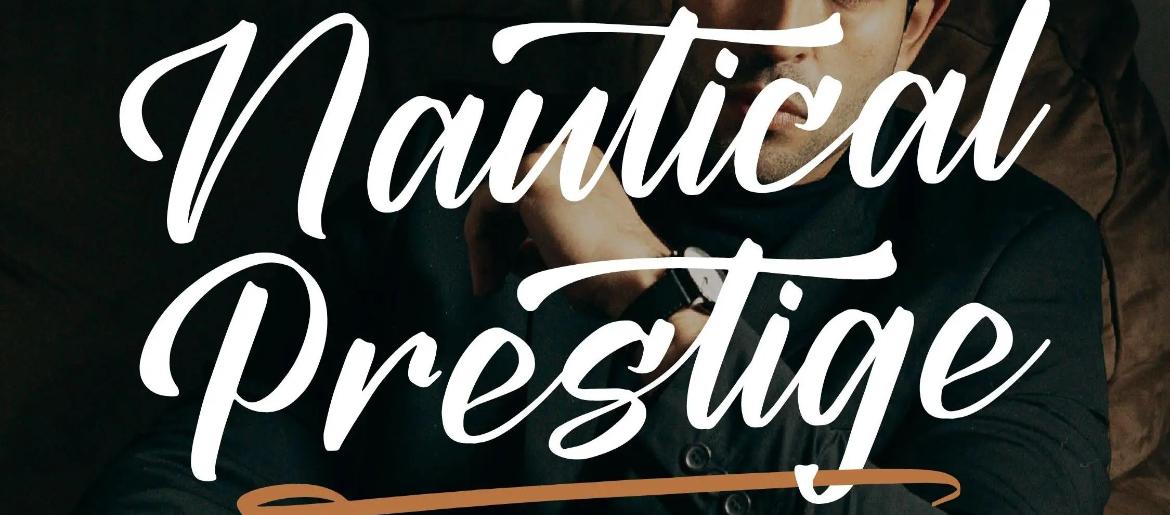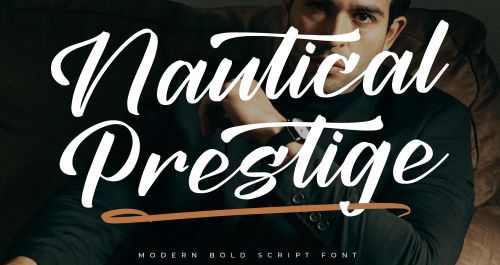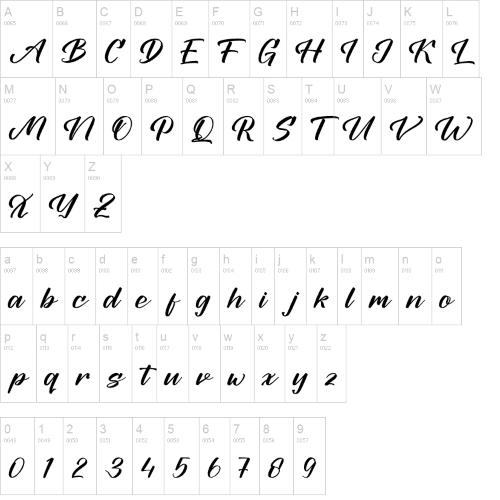
Nautical Prestige Font
Nautical Prestige font
Nautical Prestige Font is a modern, bold script typeface designed to make a strong and stylish impression. With its smooth flowing strokes and confident curves, it’s perfect for logos, branding, posters, packaging, and premium visual identities. Nautical Prestige delivers elegance, energy, and a powerful contemporary flair.
➤ Font Name: Nautical Prestige
➤ Designer: Letterena Studios
➤ Style: Bold Script